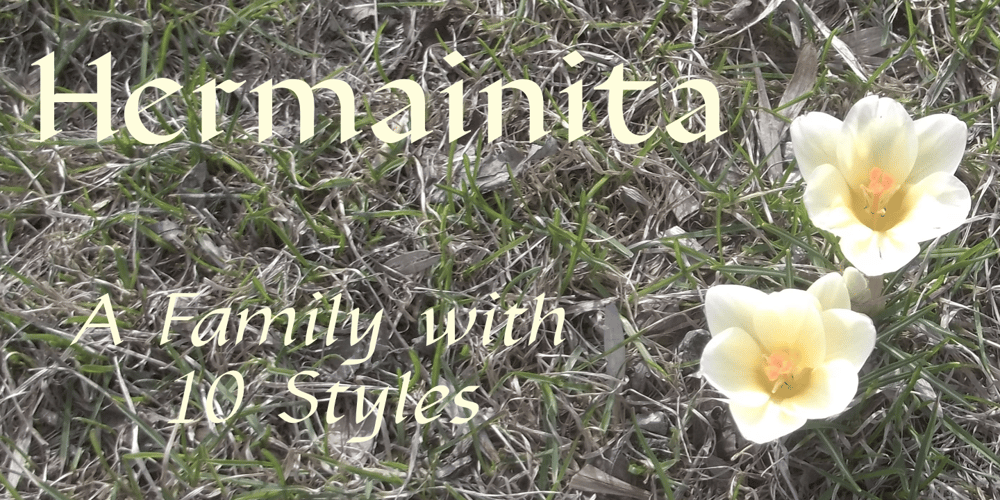
Hermainita Font Family was designed by Robert Schenk and published by Ingrimayne Type. Hermainita contains 10 styles and family package options. Hermainita is a calligraphic typeface that is very legible. Yngreena is a serifed version of this face.